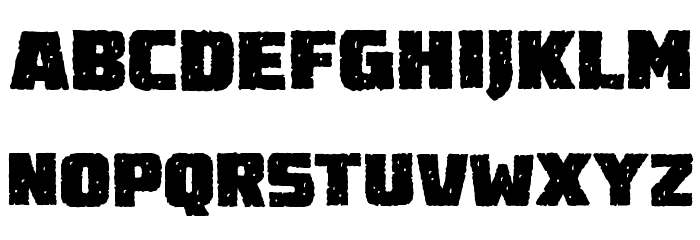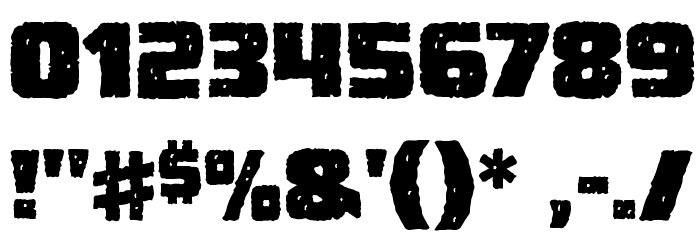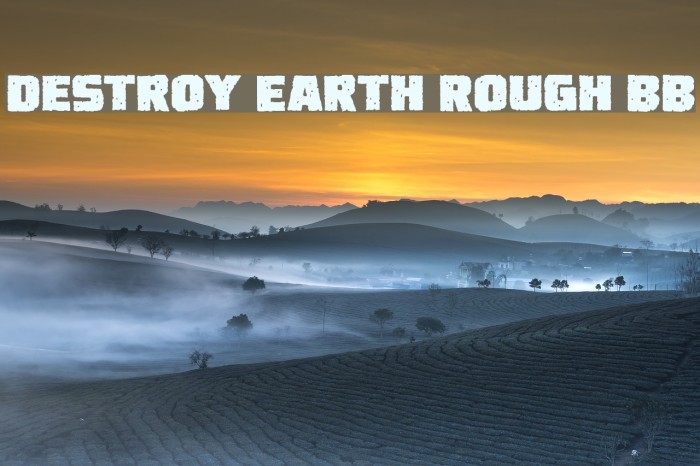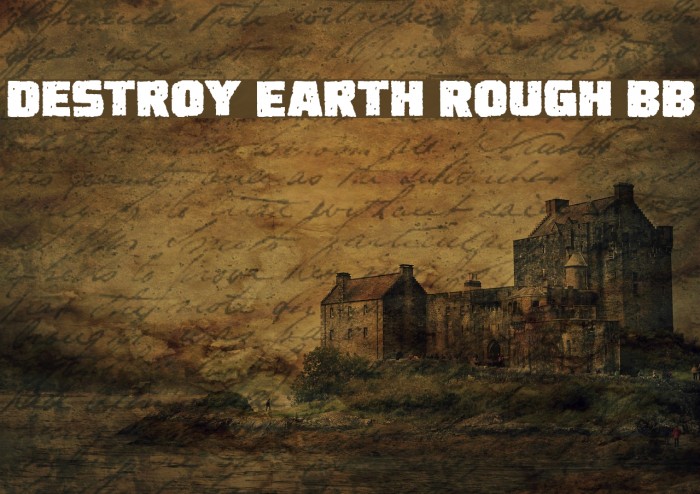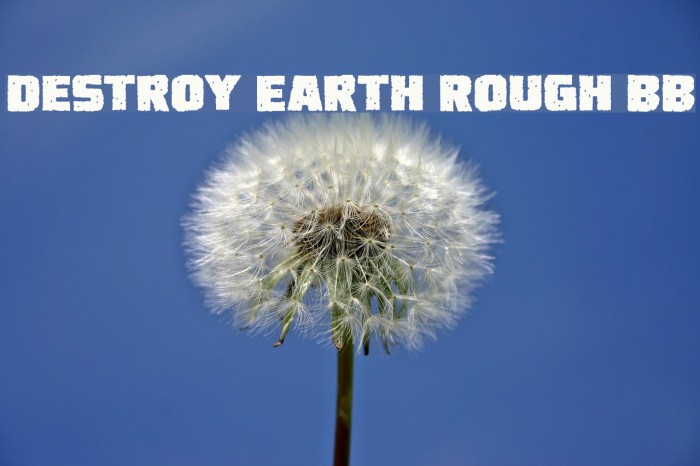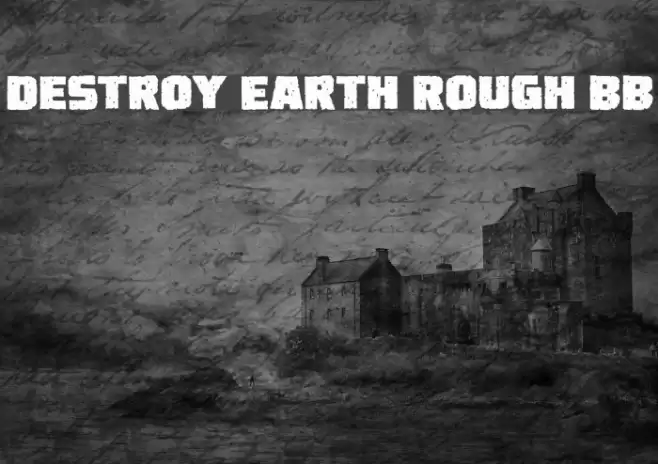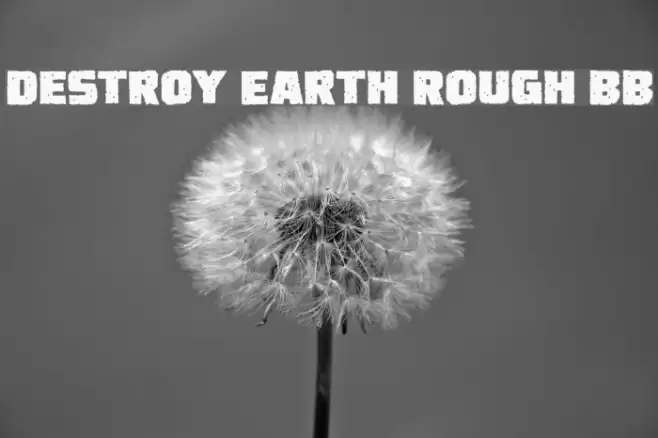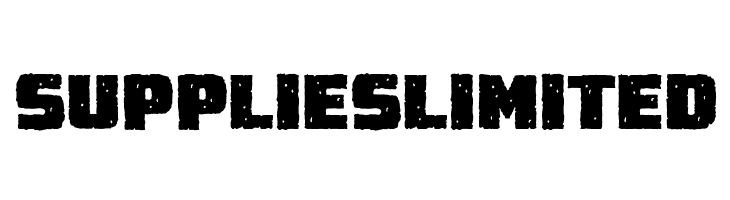
Destroy Earth Rough BB Font
This font features a rugged, distressed appearance with a bold and impactful style. The characters are heavily textured, giving them a worn and weathered look, reminiscent of eroded surfaces or aged materials. The uppercase and lowercase letters maintain a consistent thickness, contributing to a strong visual presence. The numerals and special characters follow the same design, ensuring uniformity across all glyphs. This font's rough edges and irregularities add a dynamic and energetic feel, making it ideal for projects that require a bold statement or an edgy aesthetic.
- Proposed Projects: Ideal for posters, album covers, video game graphics, and any project needing a bold, edgy look.